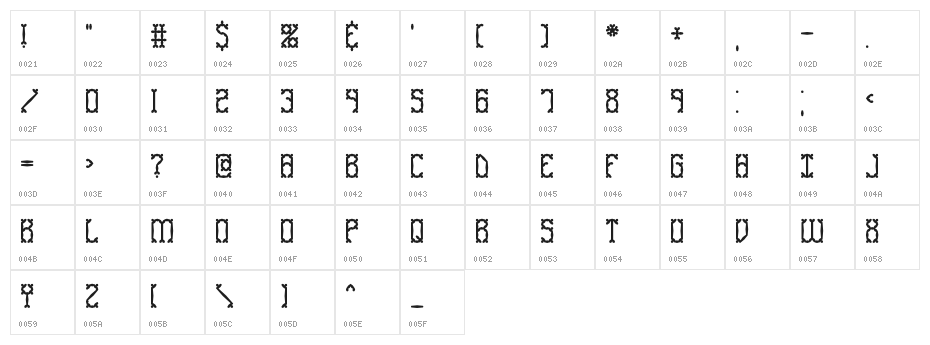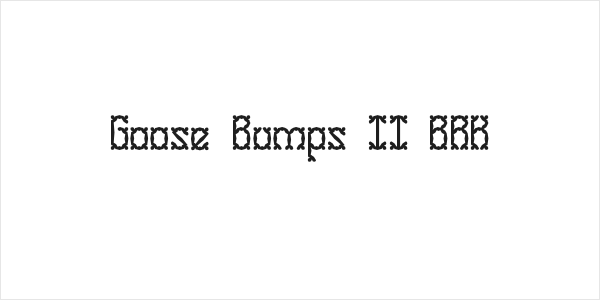
Goose Bumps II BRK Font
Goose Bumps II BRK Description
This font features a unique and playful design with a spooky, decorative style. Each character is crafted with a series of connected, rounded shapes that resemble small bones or bumps, giving it a distinct and eerie appearance. The uppercase and lowercase letters maintain a consistent style, with the uppercase being slightly more angular. Numbers and special characters follow the same thematic design, ensuring uniformity across all glyphs. The font's quirky and eye-catching design makes it ideal for projects that require a touch of whimsy or a Halloween theme.